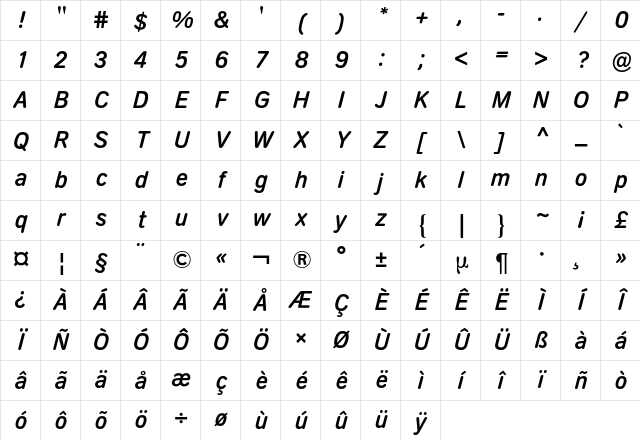
Aral-Type BQ Medium Italic Free Font
Design Context for Aral-Type BQ
Aral-Type BQ is a composed and adaptable typeface that performs quietly and consistently across a wide range of design contexts. The slanted form adds forward momentum and visual energy.